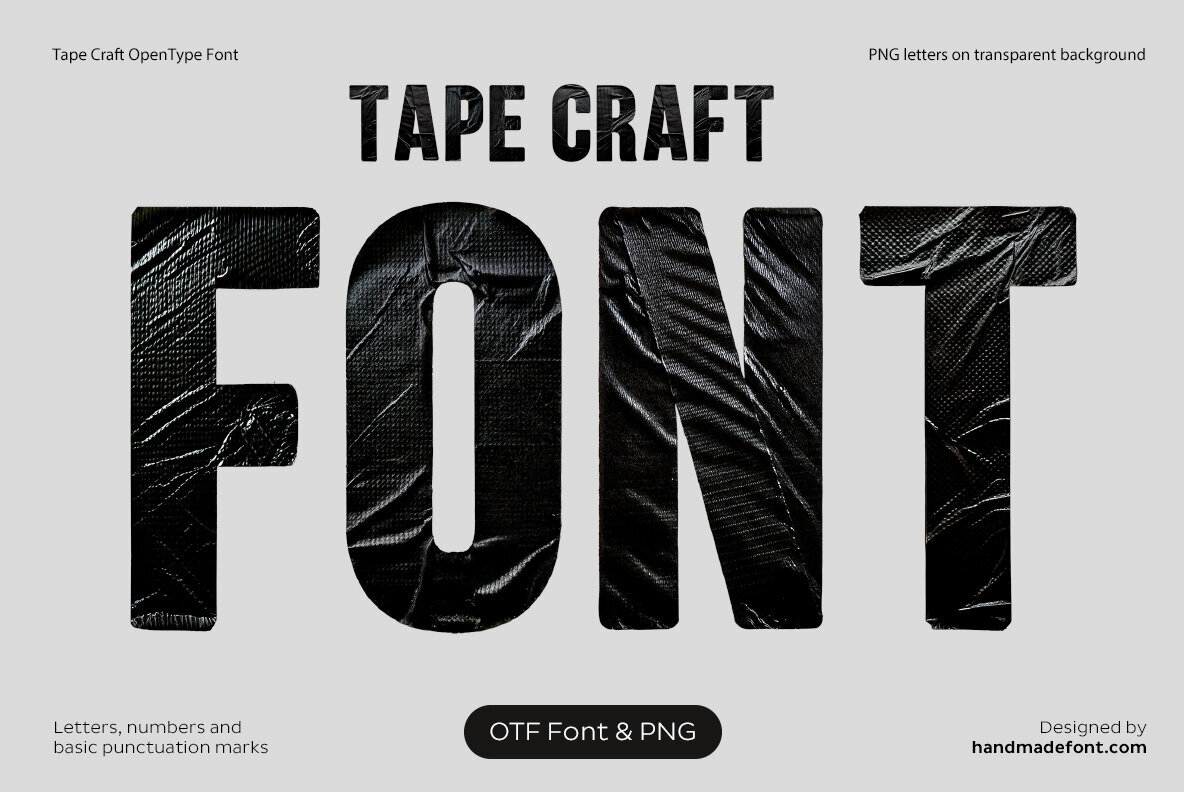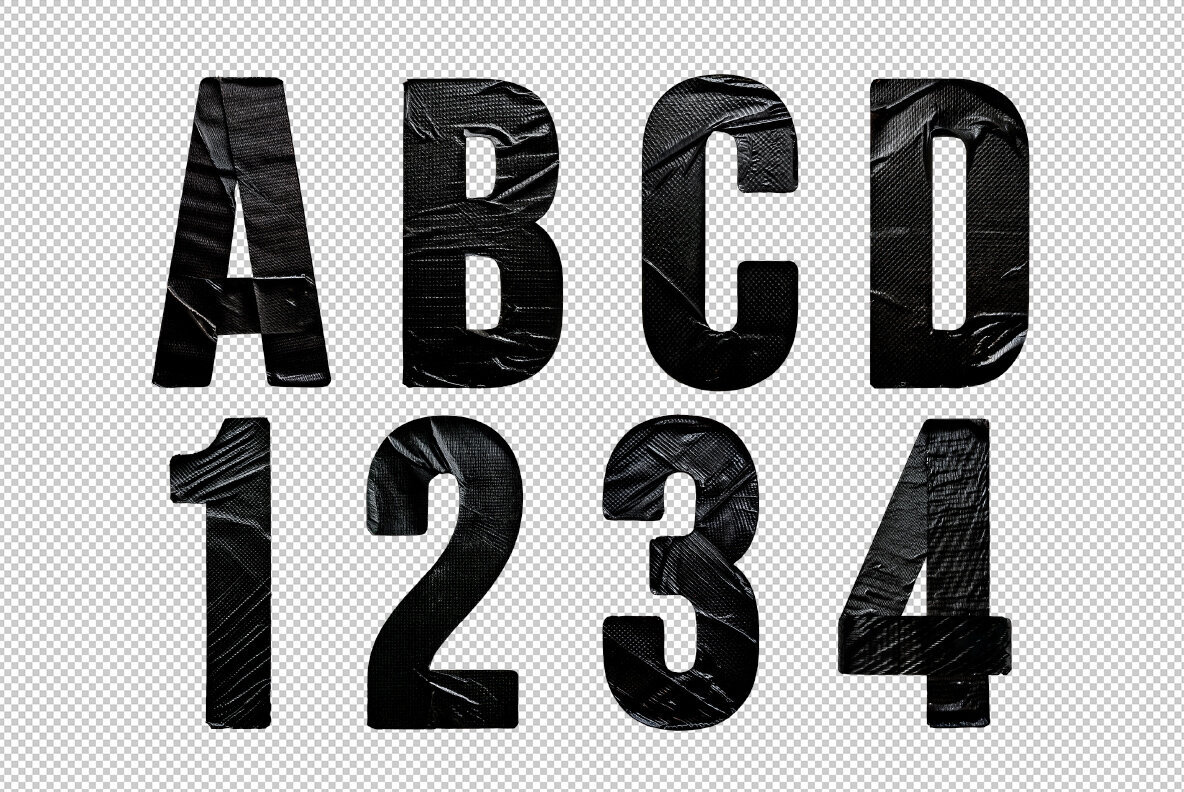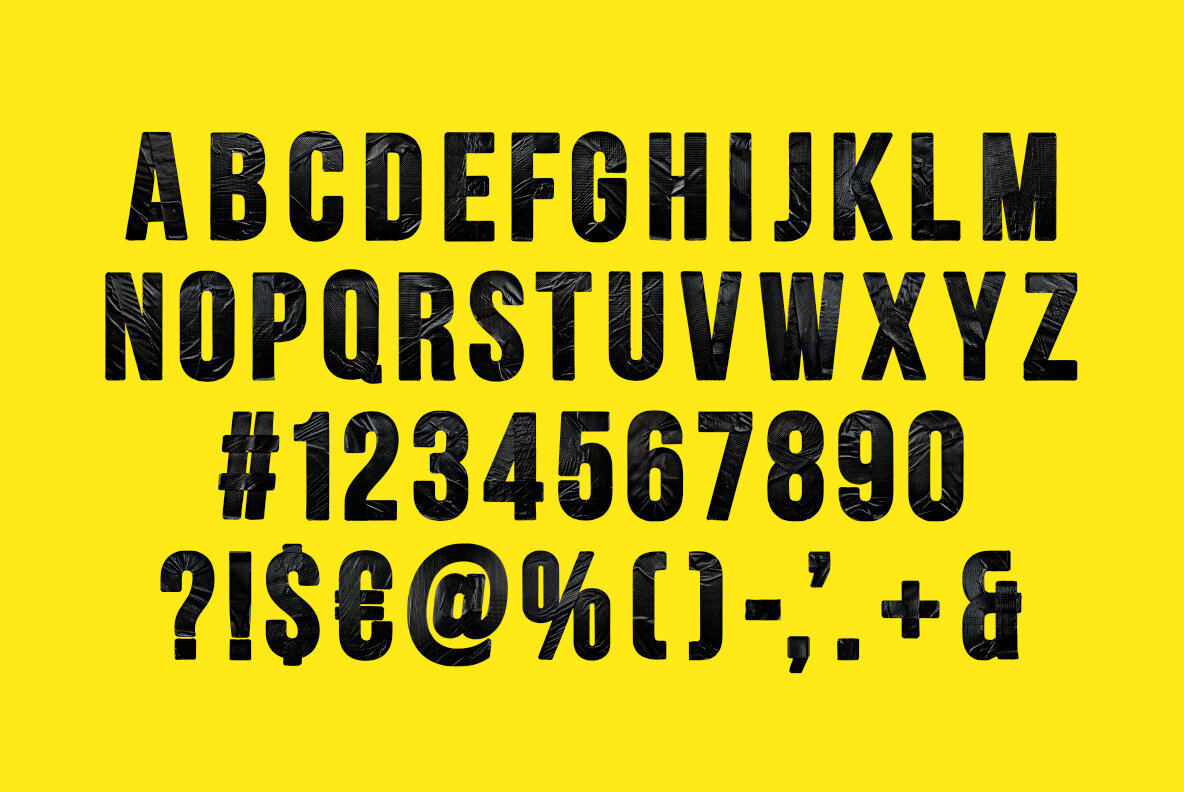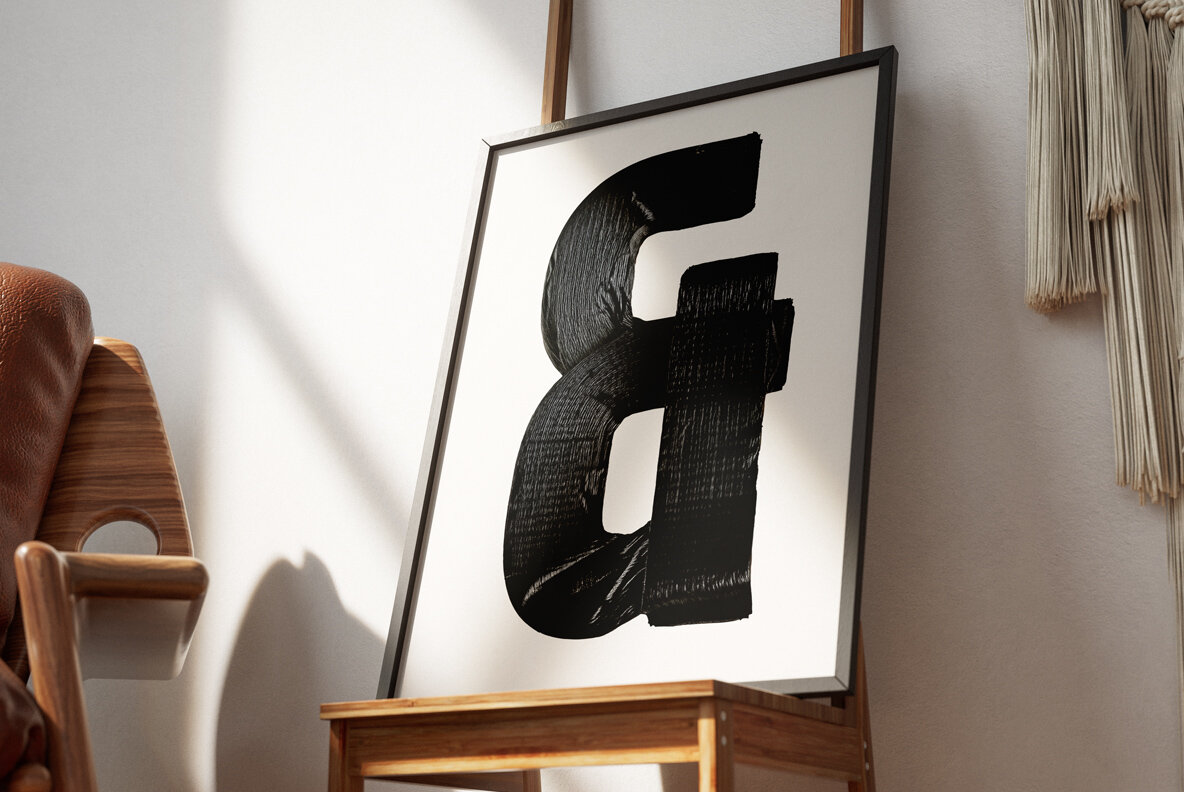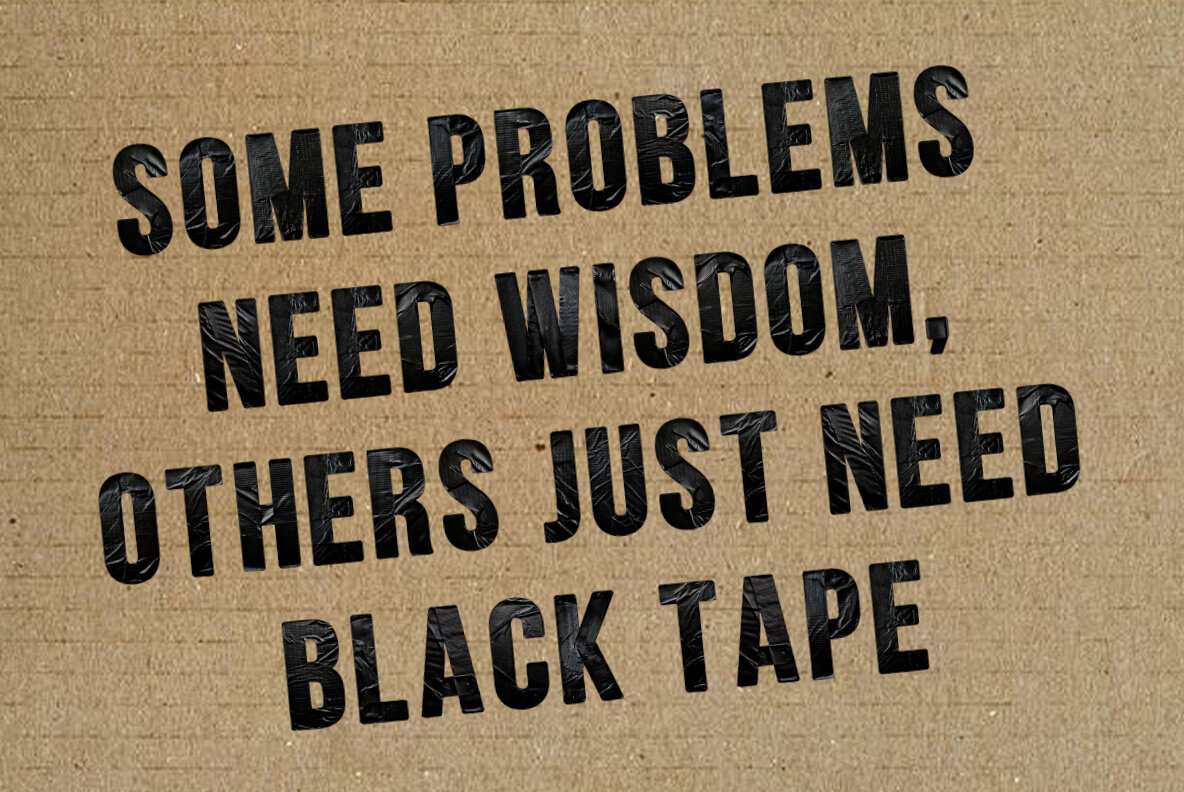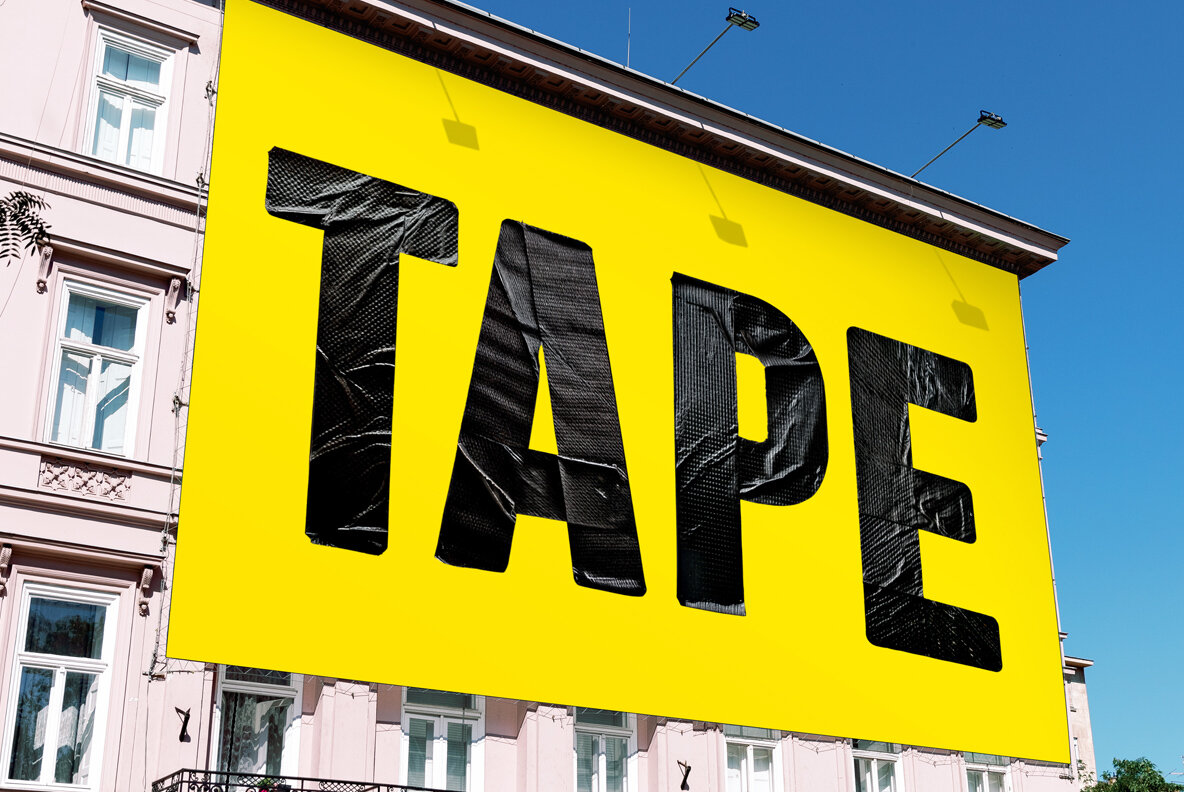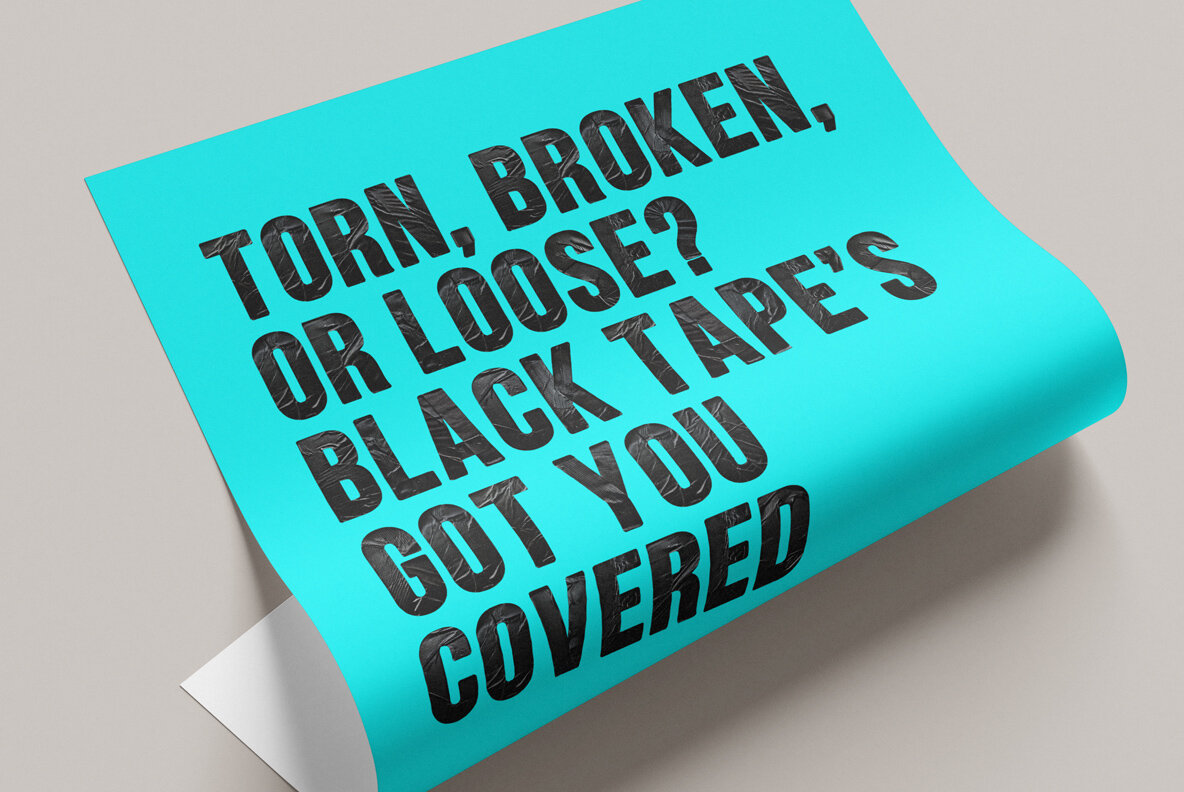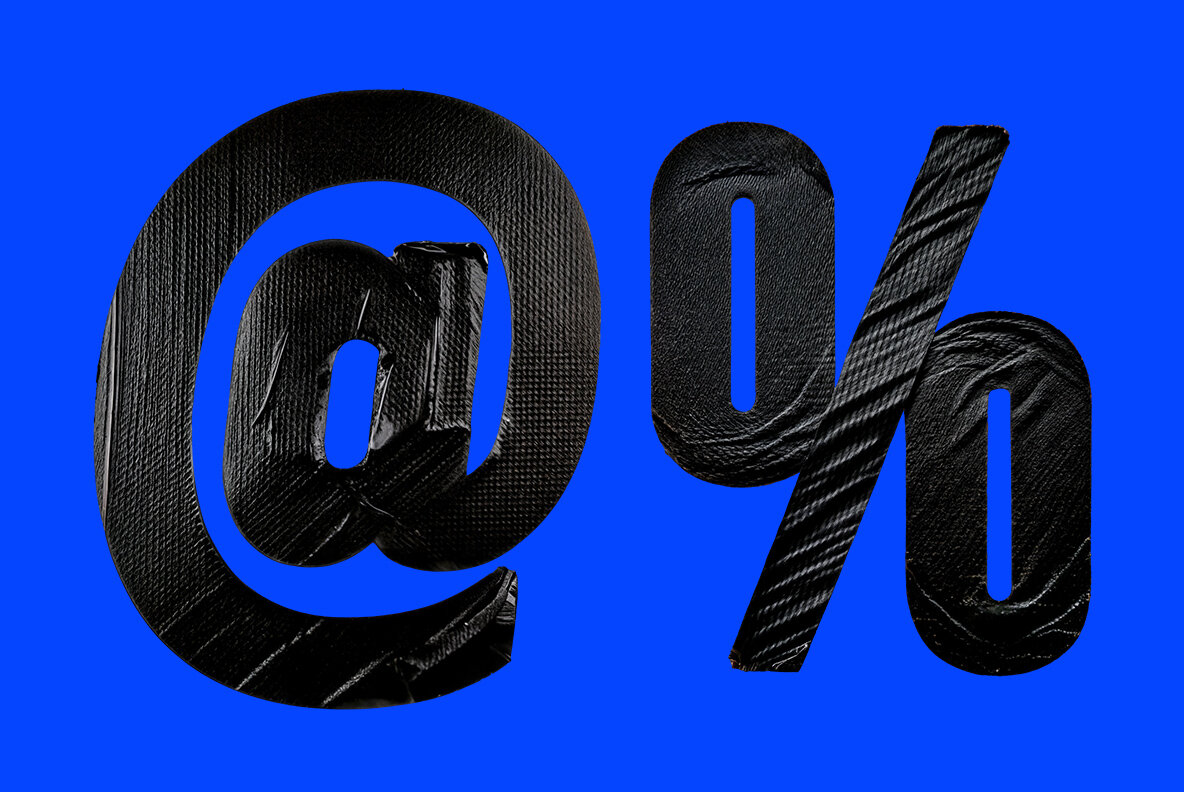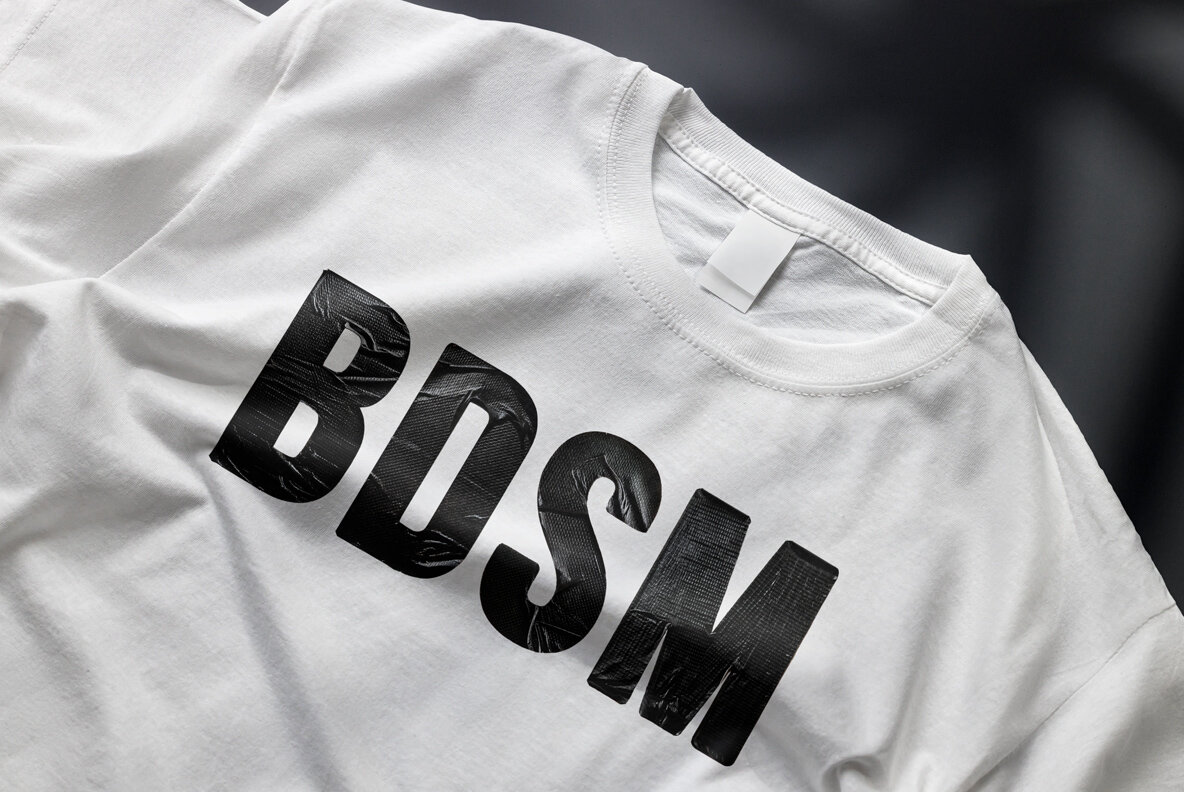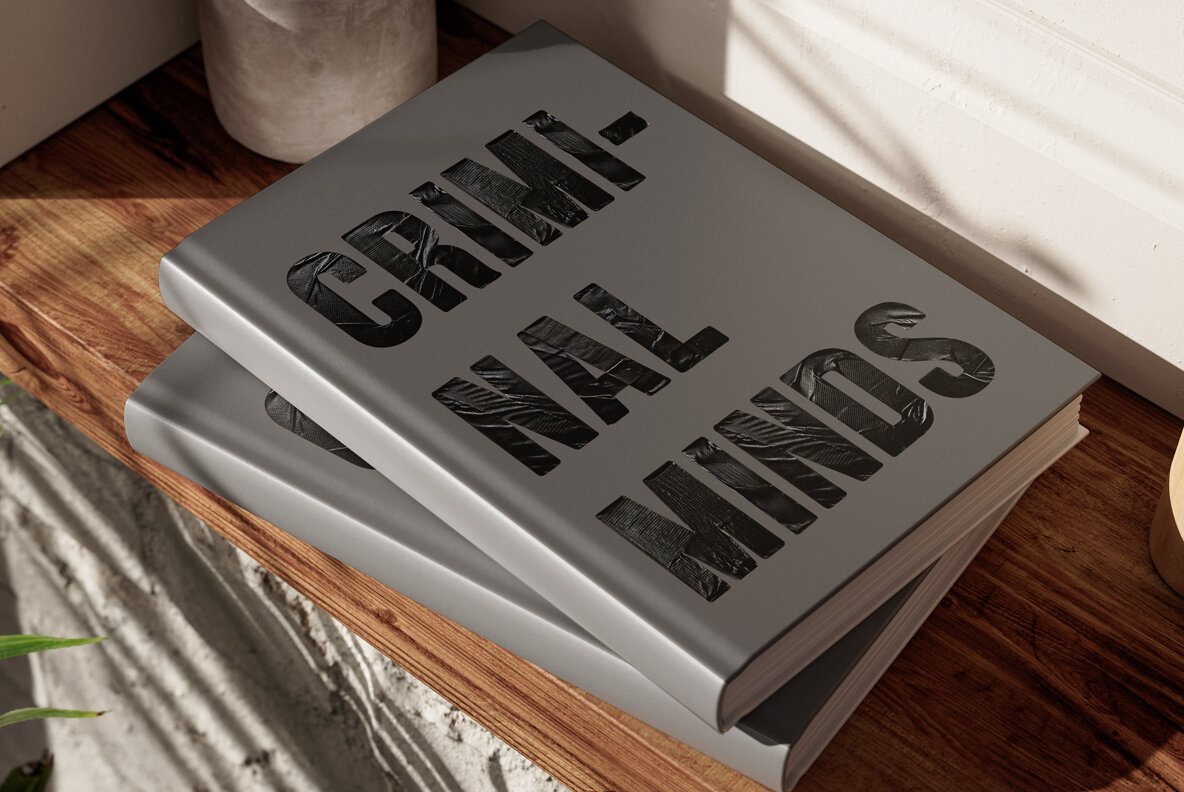
Wrapping words in the tough, no-nonsense grip of black duct tape, Tape Craft Font sticks out—literally! This tape-inspired font isn’t just typography; it’s an industrial-strength statement. Each letter, meticulously crafted from wrinkled, slightly frayed adhesive strips, looks like it just patched up a leaky pipe or held together a top-secret invention. With its raw, DIY vibe, this tape alphabet screams durability, rebellion, and "I ran out of regular fonts, so I grabbed my toolbox!" Perfect for bold designs, gritty branding, or just sealing up boring layouts—because nothing says “strong” like duct tape and determination! A high definition OpenType Font. Contains uppercase characters, numerals and basic punctuation. (Draw height roughly 800 pixels). All letters and glyphs that comprises this font you can see on the preview. The font is a colour OpenType file which means this font will show up only in apps that are compatible with color bitmap fonts. Now that OpenType-SVG has been adopted as the industry standard, there is good chance that you can start using color fonts across your favorite software and hardware (Photoshop, Illustrator, InDesign, QuarkXPress, Keynote, PowerPoint, Word etc.) However all characters are also included as individual .png files which can be opened in any graphics software. Each letter comes as a separate PNG file on a transparent background. Each image has the high resolution size of 4000x4000px. This downloadable package contains 52 files. Letters : A B C D E F G H I J K L M N O P Q R S T U V W X Y Z Punctuation and Language Support. Due to the large nature of OpenType-SVG fonts, extended punctuation and language support are not included in the font files. However all punctuation characters and the following accents are included as individual image files in the .png letter set, which can be manually added to your text.